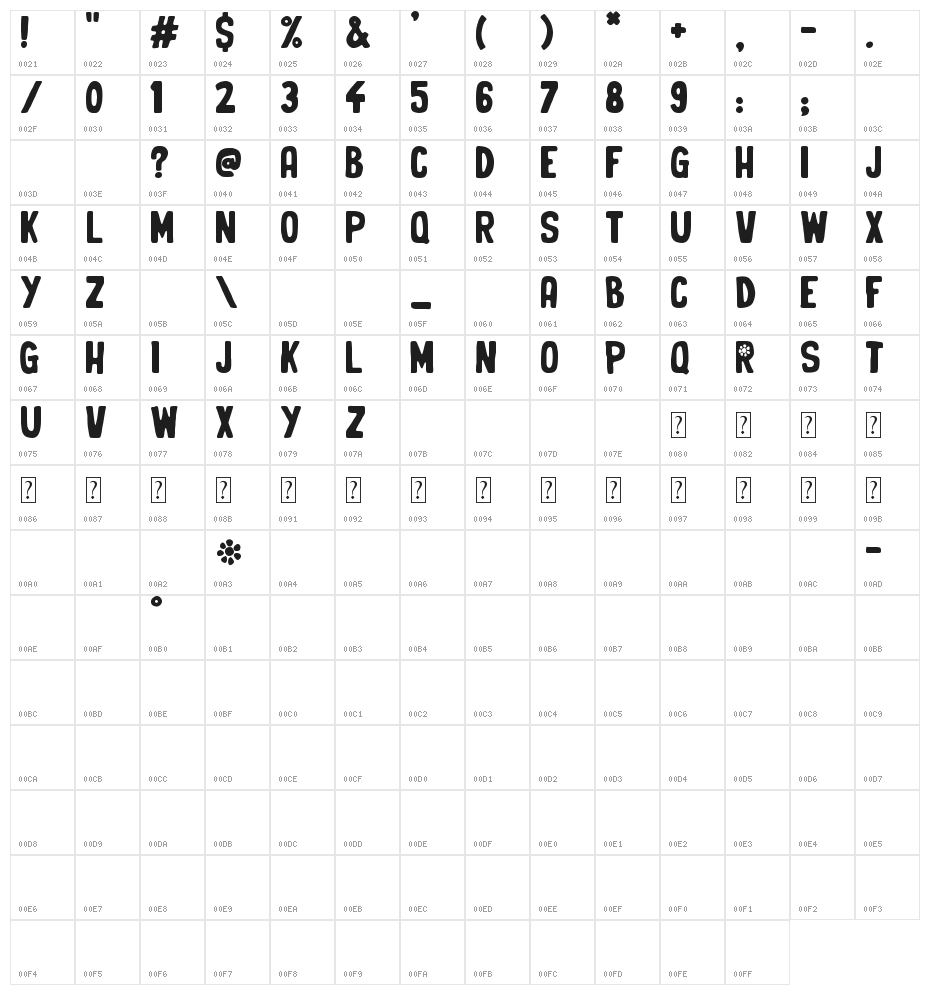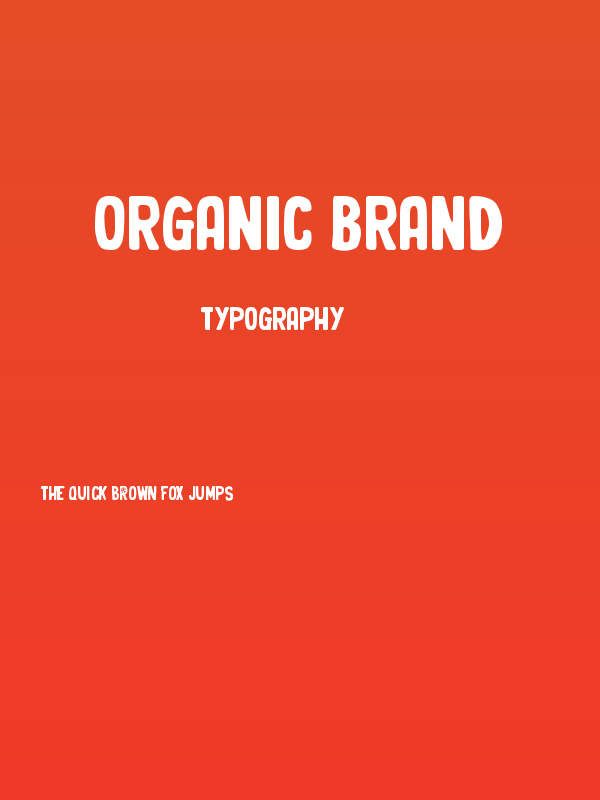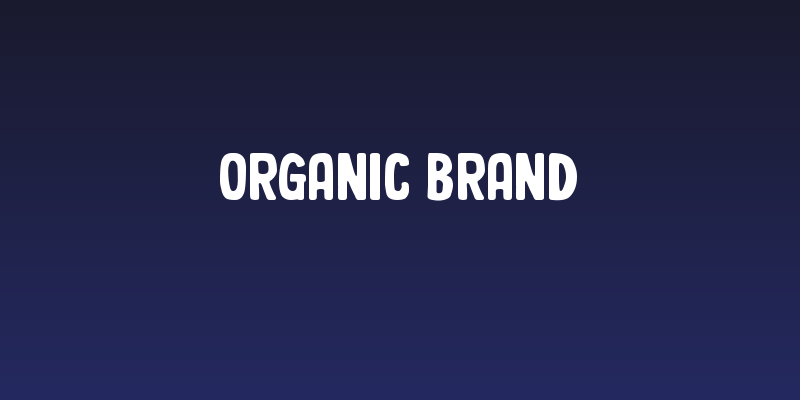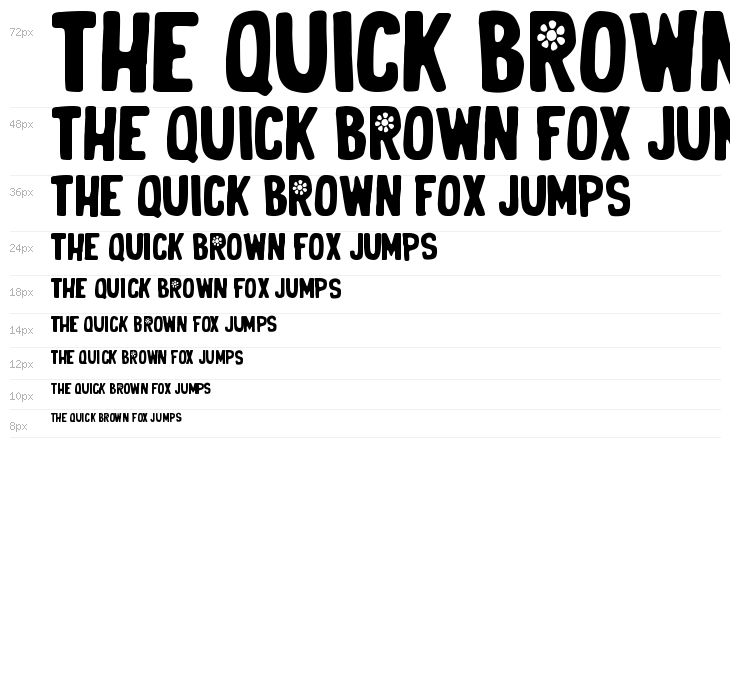
Organic Brand Font
Organic Brand Description
This font features a bold and playful design, characterized by its thick, rounded letterforms that convey a sense of fun and approachability. The uppercase and lowercase letters maintain a consistent weight, creating a cohesive and unified appearance. The numbers and special characters are designed with the same playful style, ensuring versatility across various applications. The font's unique character is enhanced by subtle variations in stroke width, adding a touch of organic charm. Its boldness makes it highly legible, even at smaller sizes, while the rounded edges soften its overall look.
| Overall Style | Playful, Organic |
| Proposed Projects | Ideal for branding, packaging, children's books, and playful advertising campaigns. |